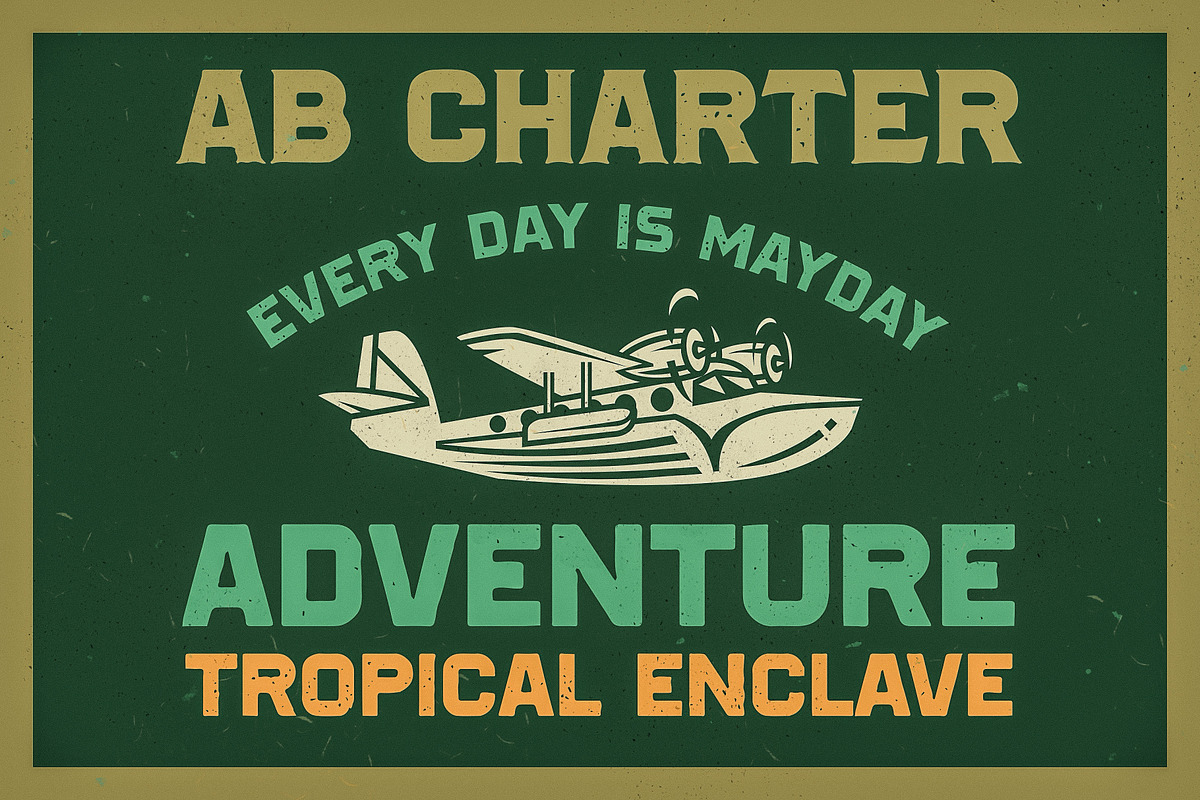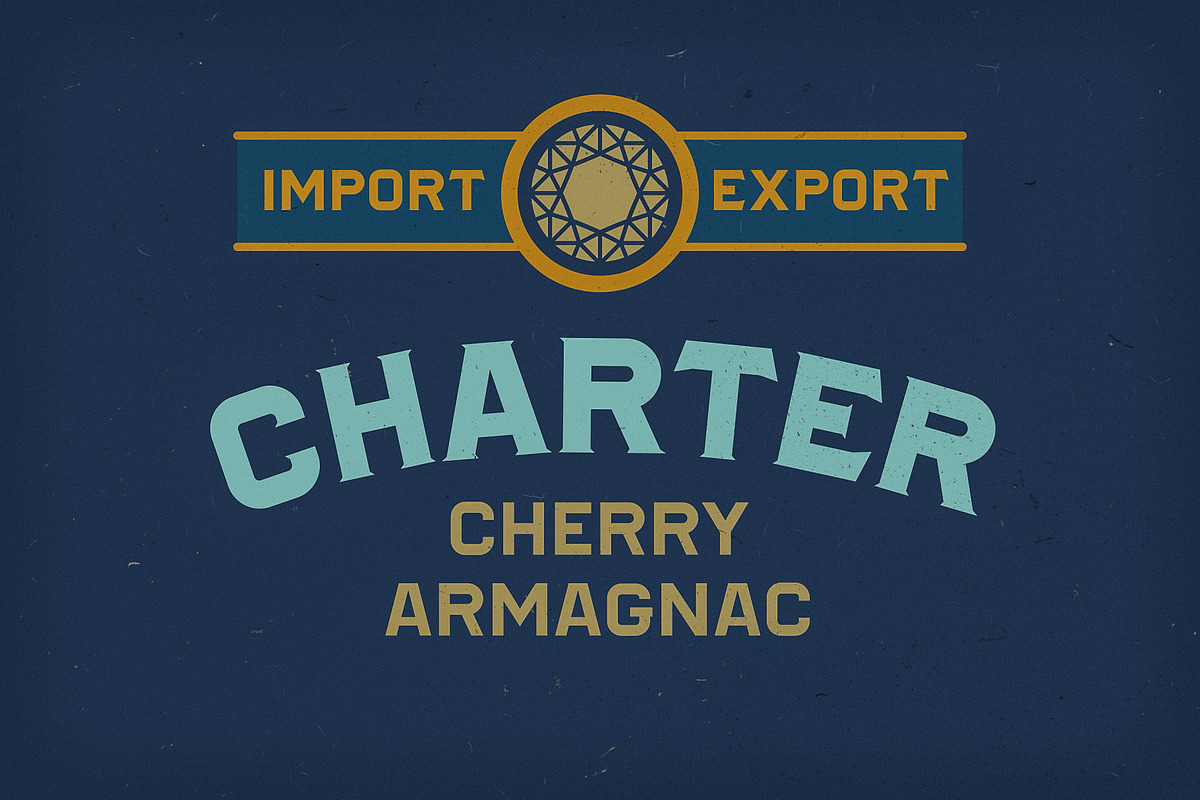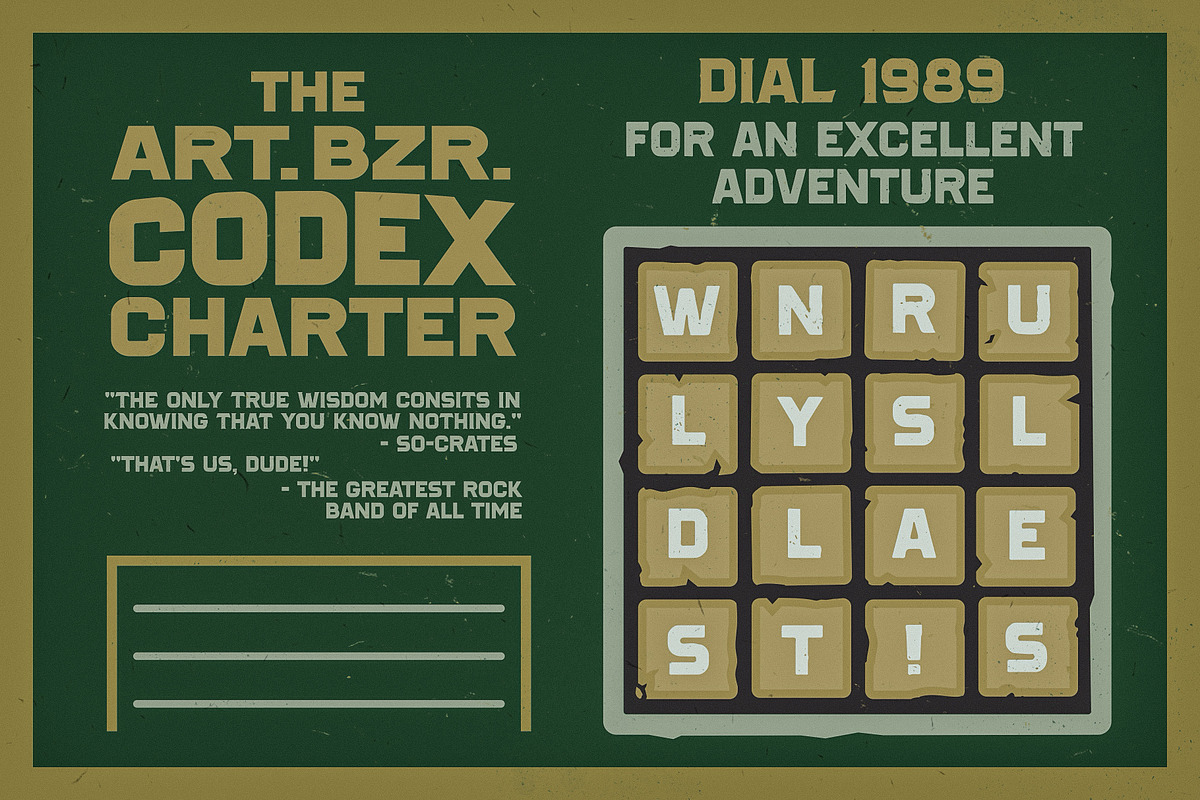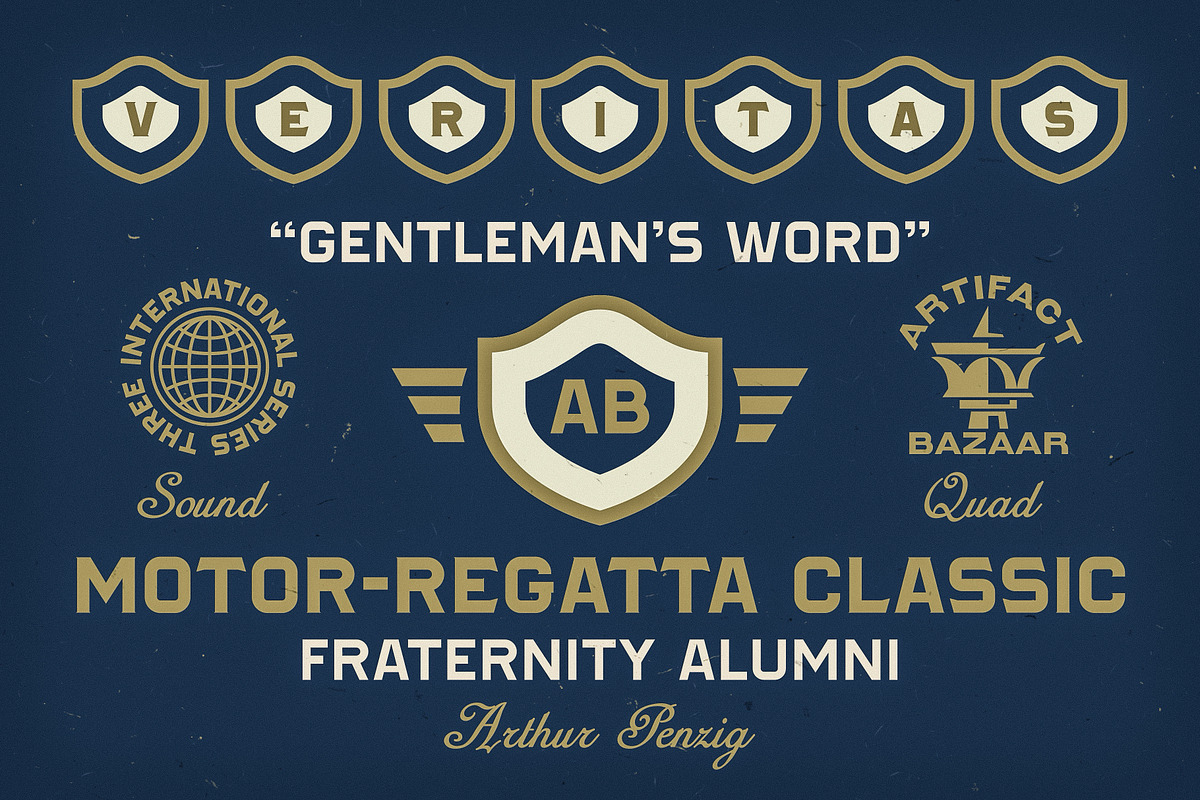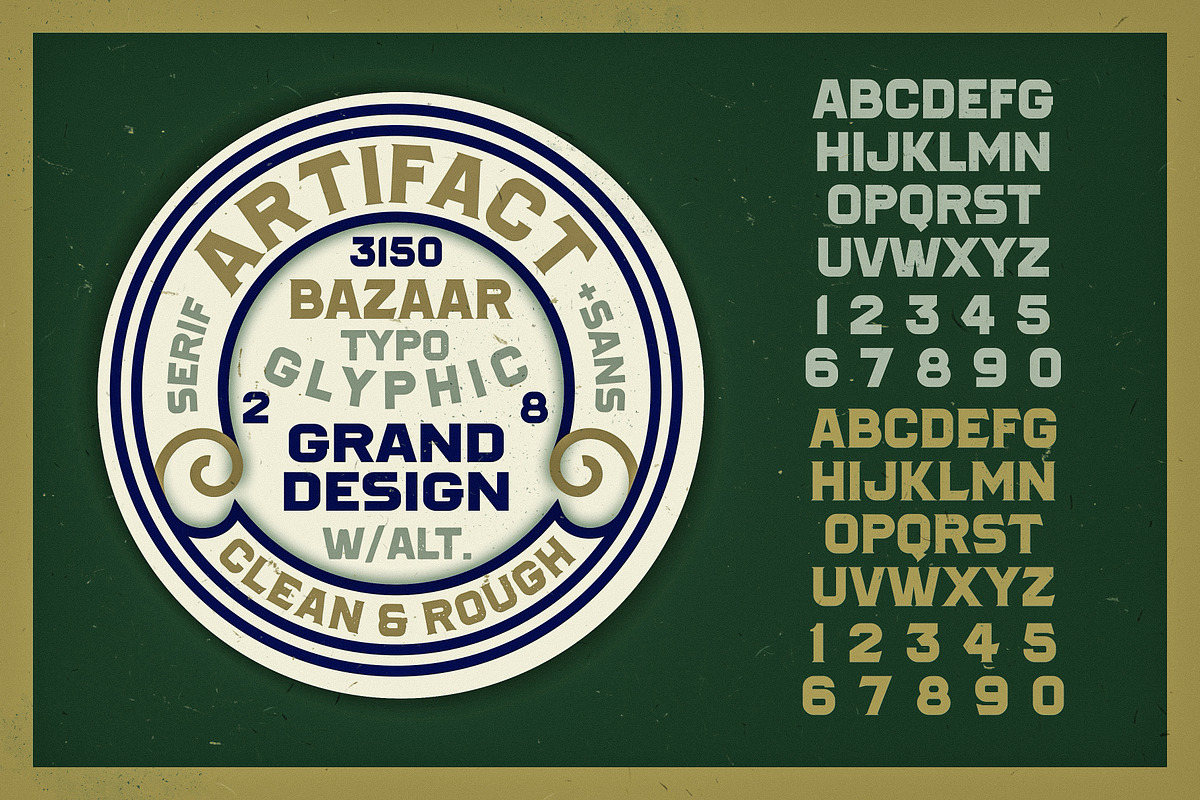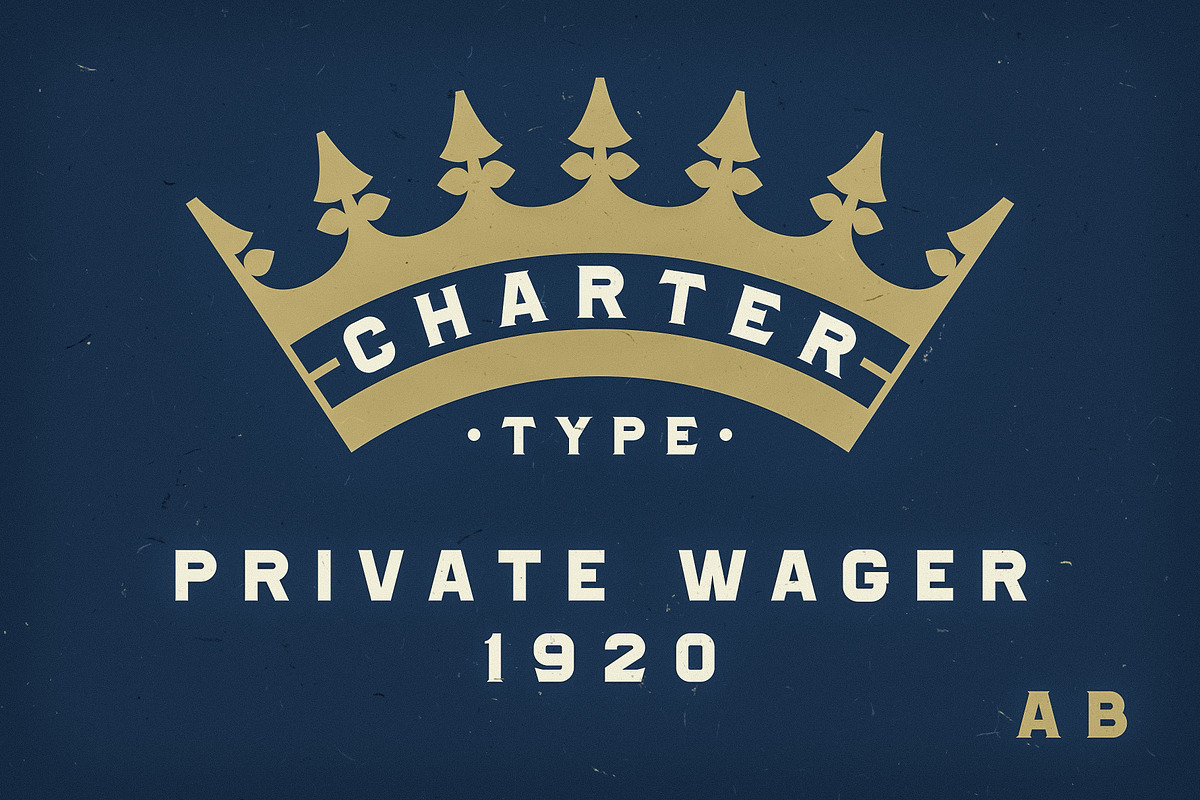
Charter | Timeless Serif & Sans Duo
Take your designs on daring adventure around the globe and back in time, with Charter at the helm.
- 4 Styles: Serif, Serif Rough, Sans Serif, Sans Serif Rough
- Multiple texture variations to conceal repeating patterns in glyphs
- All punctuation and special characters